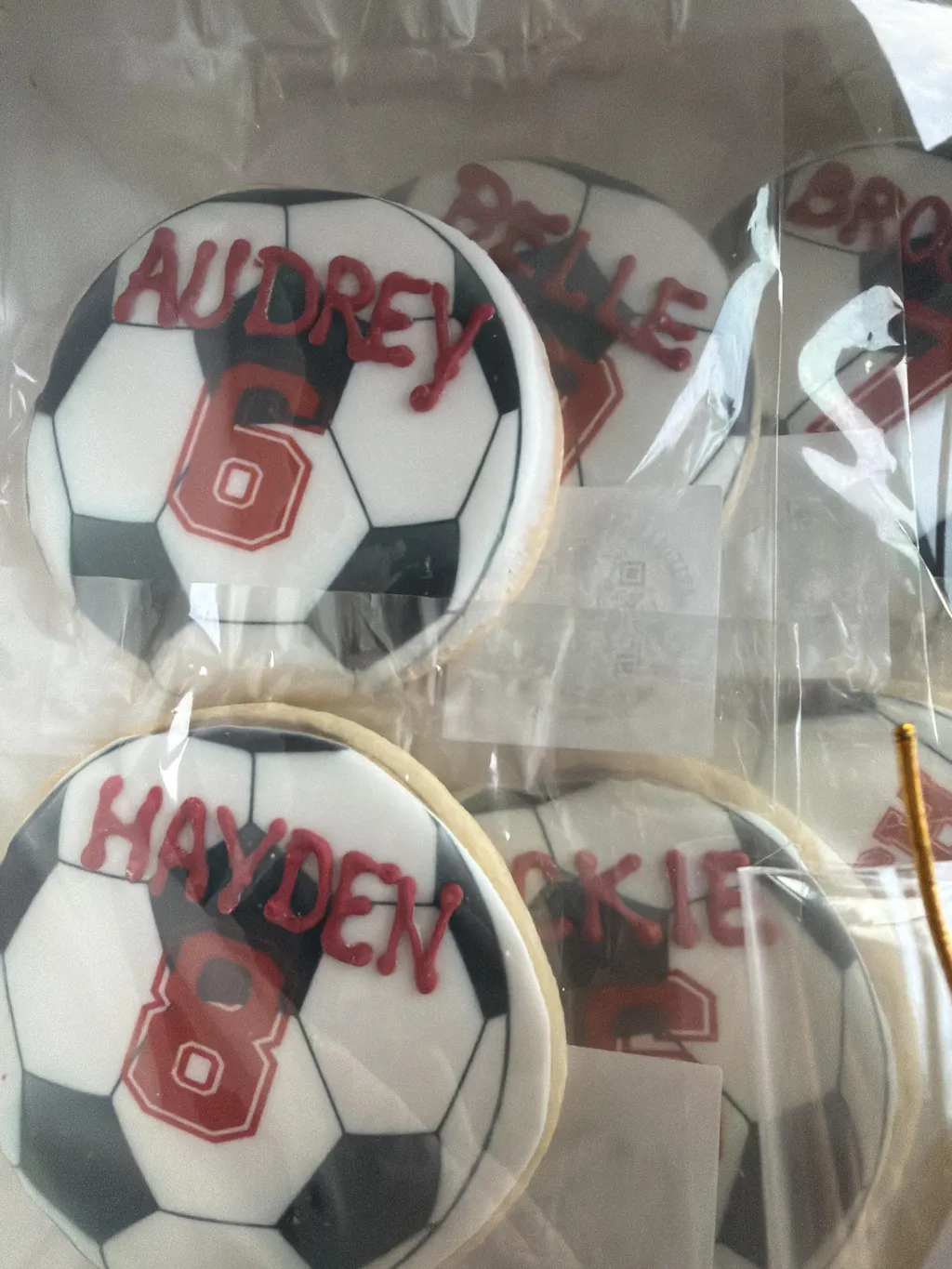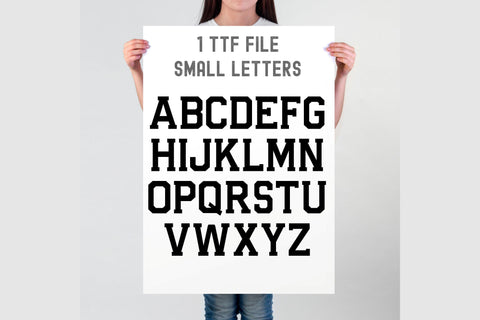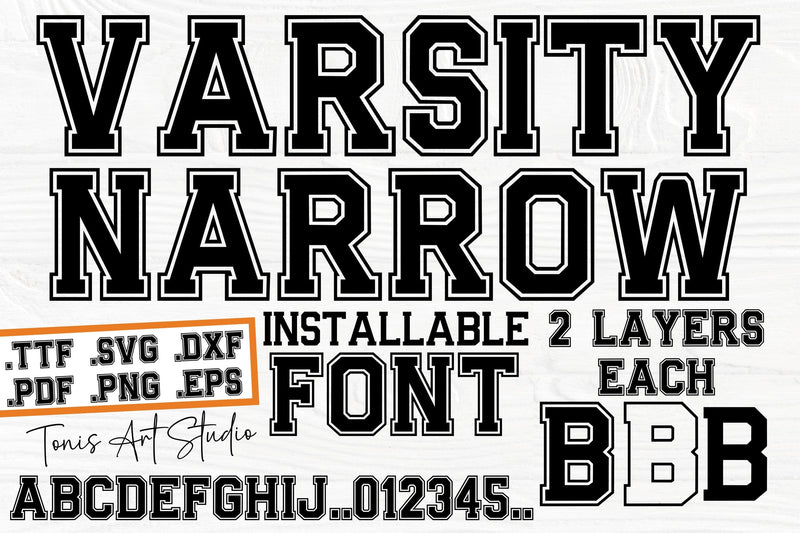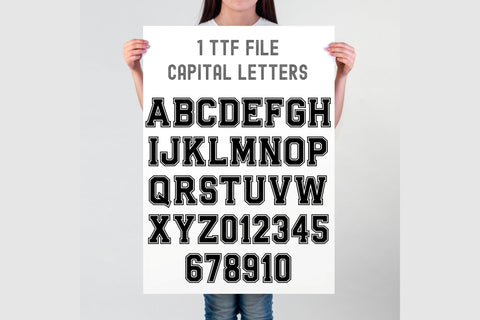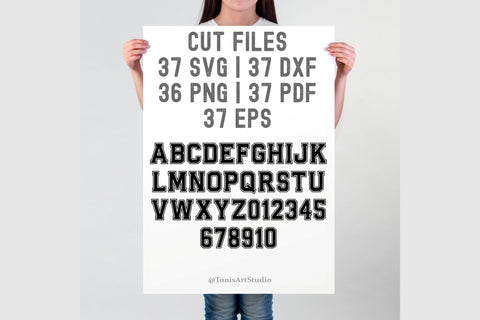
Varsity Narrow Font, Varsity Font SVG, Jersey Font SVG TTF, Outline Letters College Style
Add a touch of classic varsity style to your projects with this Varsity Narrow Font SVG! Perfect for sports-themed design projects, this versatile font features sharp outline letters reminiscent of traditional college fonts. Whether you're creating team jerseys, party invitations, or home decor items, this Varsity Font is sure to make a bold statement. Download the Jersey Font SVG TTF file today and step up your design game with this timeless college font.